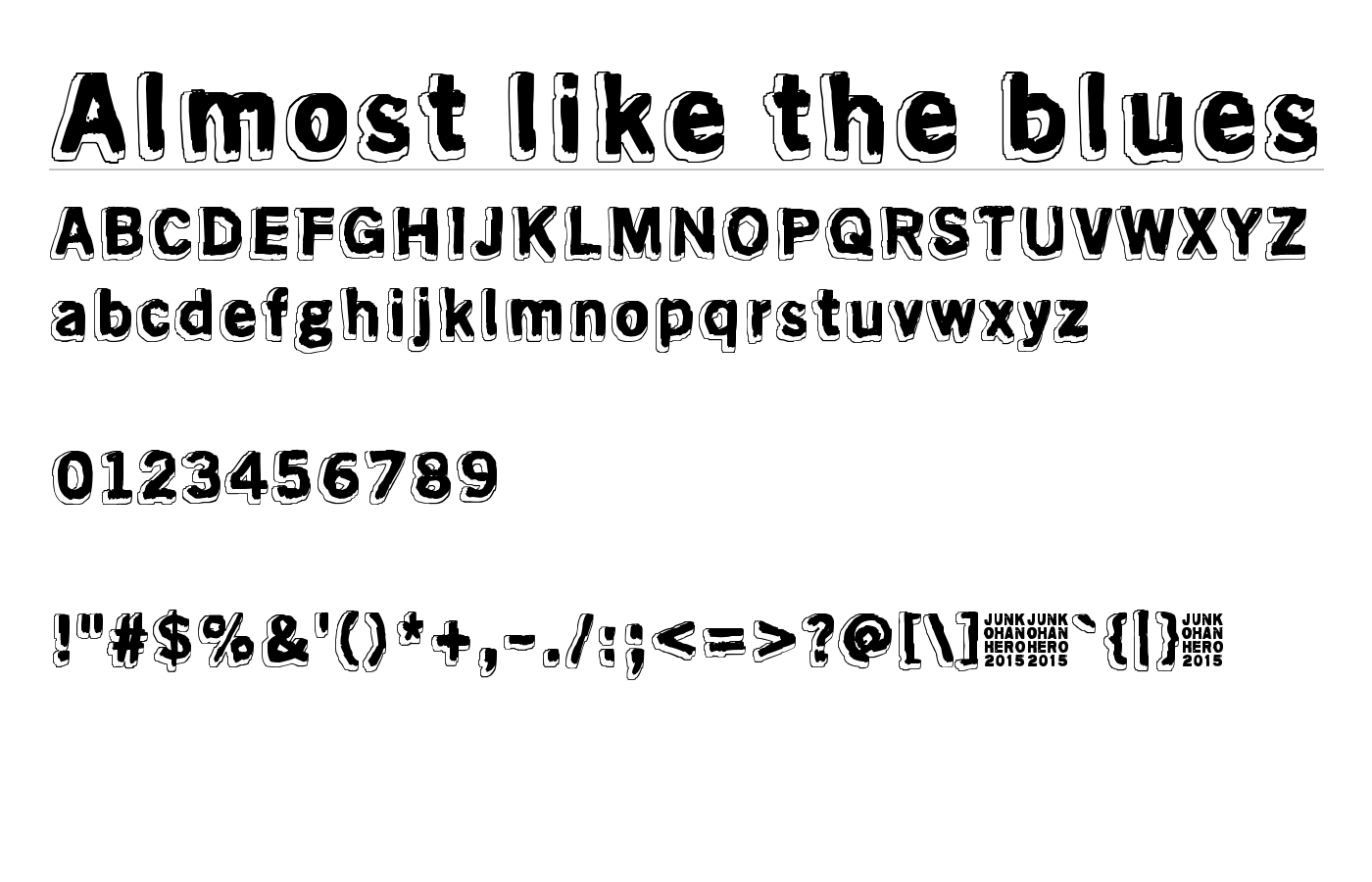
Almost Like the Blues is a bold, playful sans serif font with a hand-drawn, textured style that gives each letter a rough, energetic feel. Its chunky shapes and uneven edges create a lively, informal personality, perfect for creative projects and designs that want to stand out with a fun, vintage-inspired vibe. This font works well for posters, logos, and packaging where a spirited, artistic touch is needed to grab attention.
Almost like the blues Font
About Almost like the blues Font
| Font family | Almost like the blues Font |